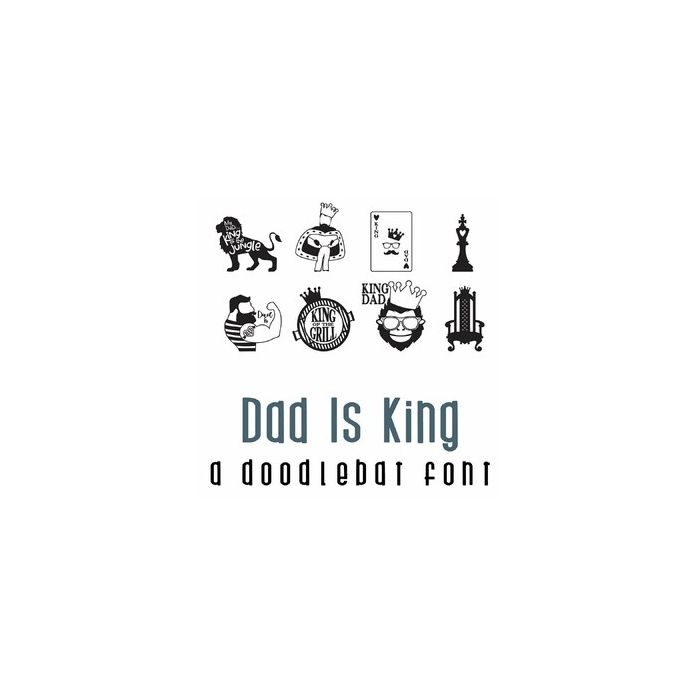
This fun doodlebat font features 26 images perfect for the father figure in your life, whether he's king of your castle, or king of the jungle, this doodlebat is perfect for cards, crafts, gifts, parties, planner stickers, scrapbook pages and more!